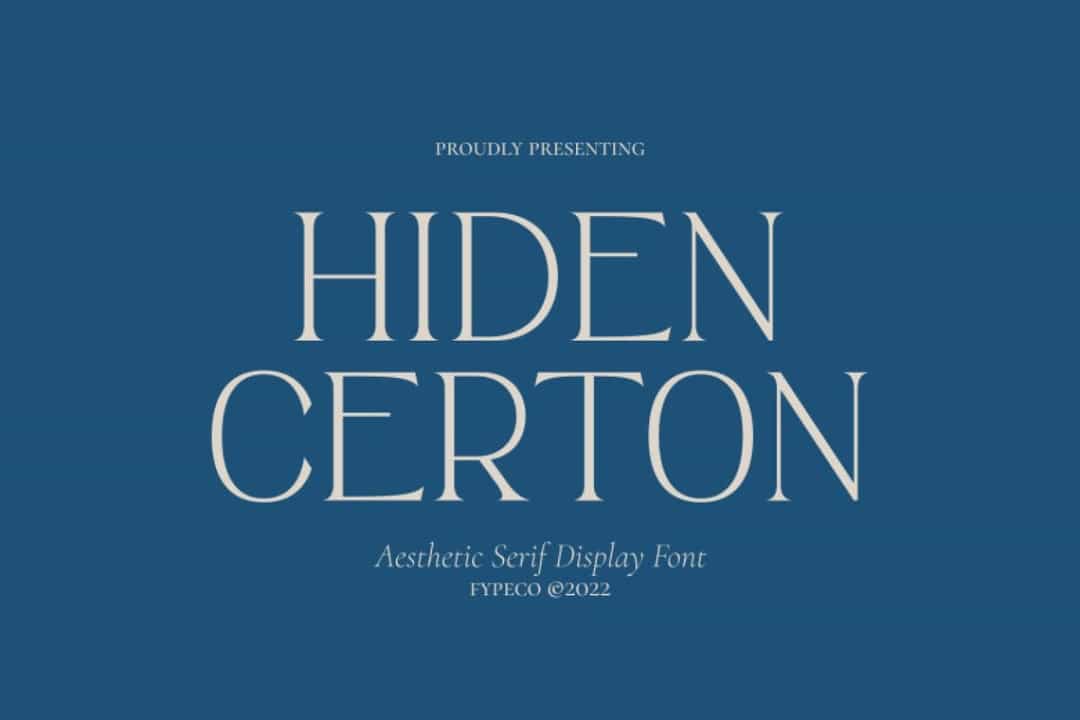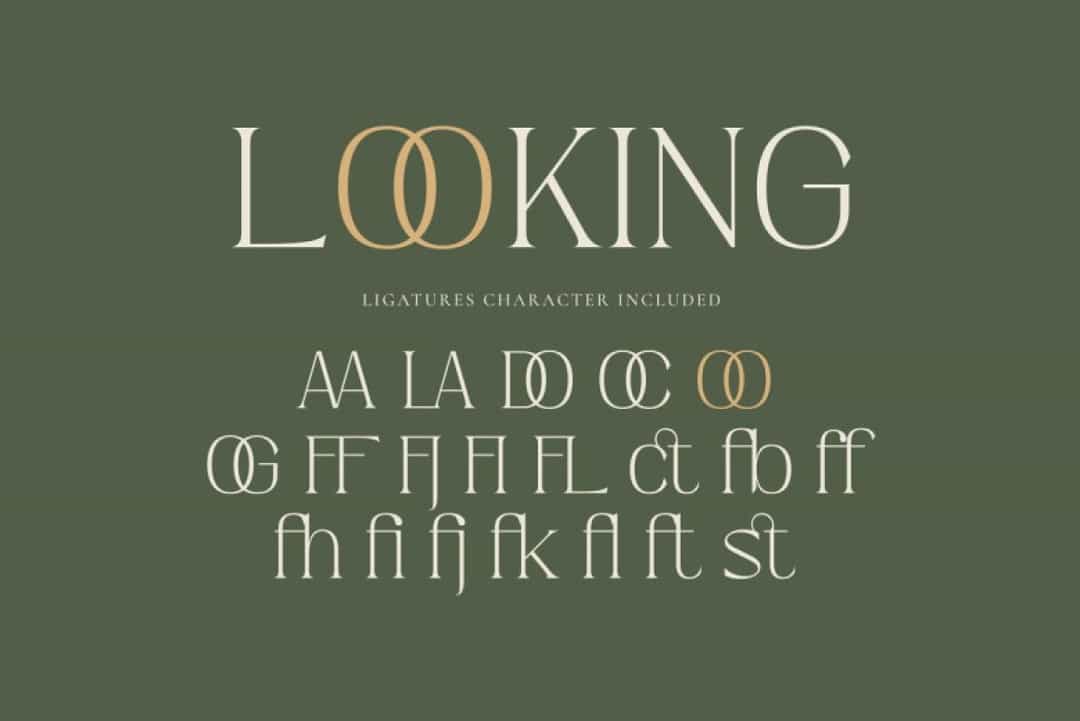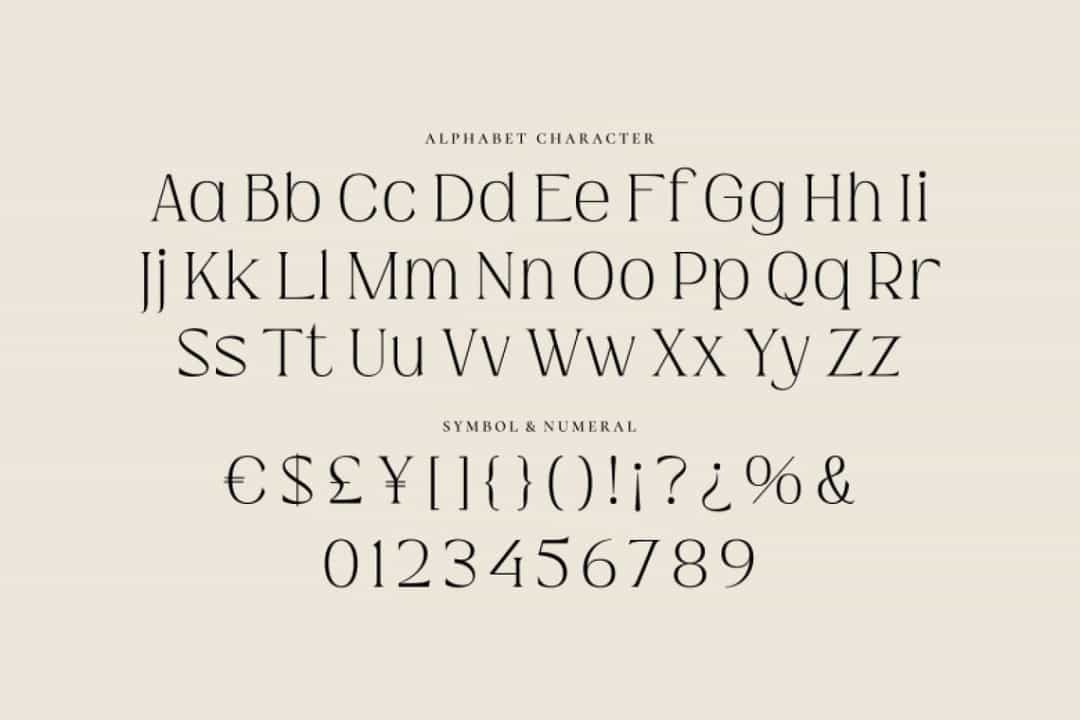
Hiden Certon is an eye-catching display serif font featuring ligatures. Its modern yet stylish design gives this font its elegant, sophisticated aesthetic – ideal for post, logos, quotes, blogs and posts as well as designing/branding projects, magazine images and typography projects as well as magazine images typography projects.